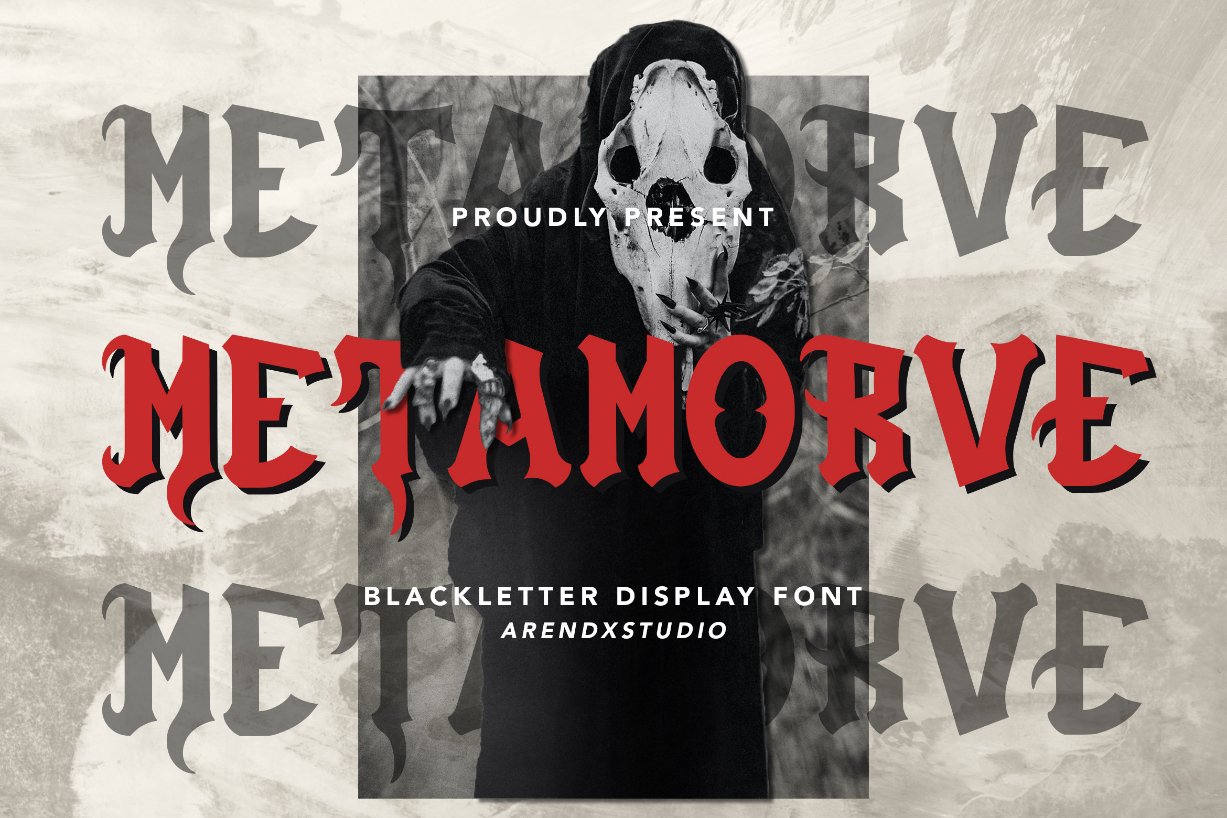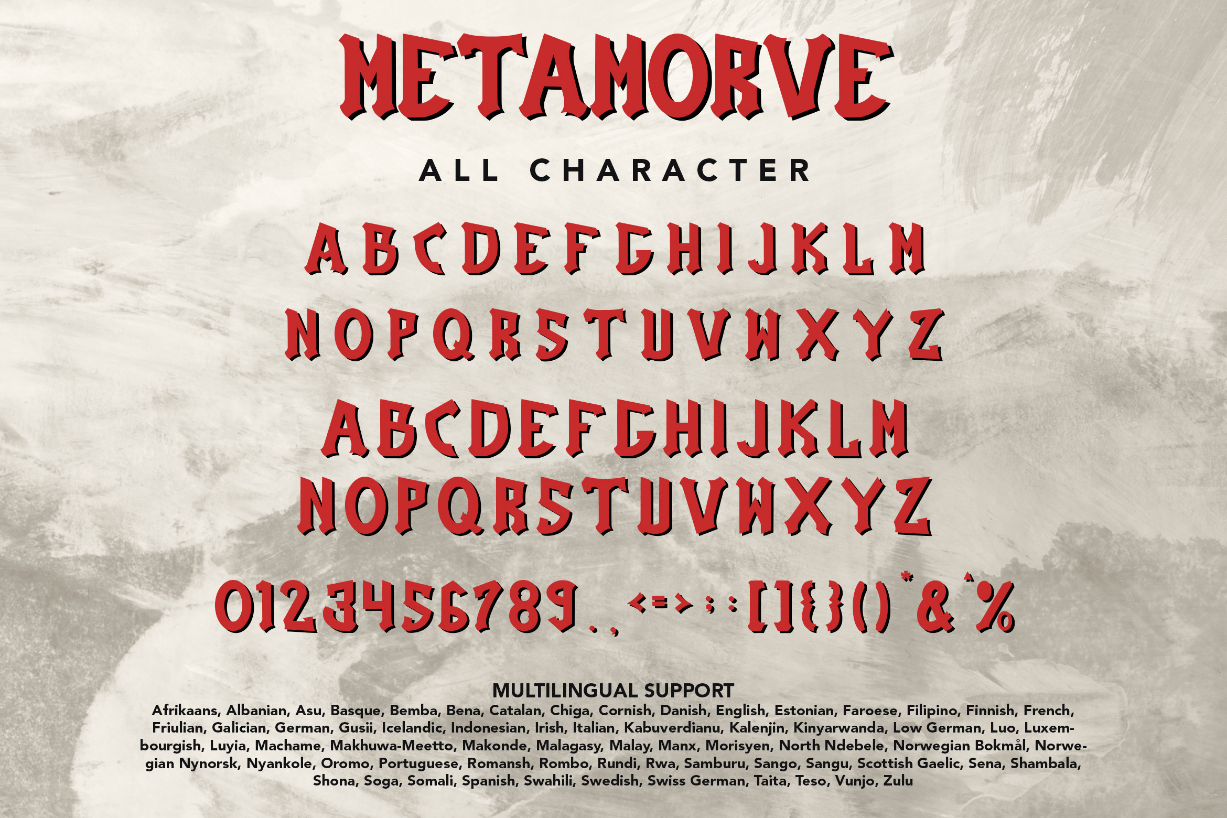
About Metamorve Font
Metamorve is a blackletter font inspired by gothic and horror styles. It is unique and suitable for projects that require a more solemn and somber feel.
It is great for logotype, poster, badge, book cover, T-shirt design, packaging, and more.